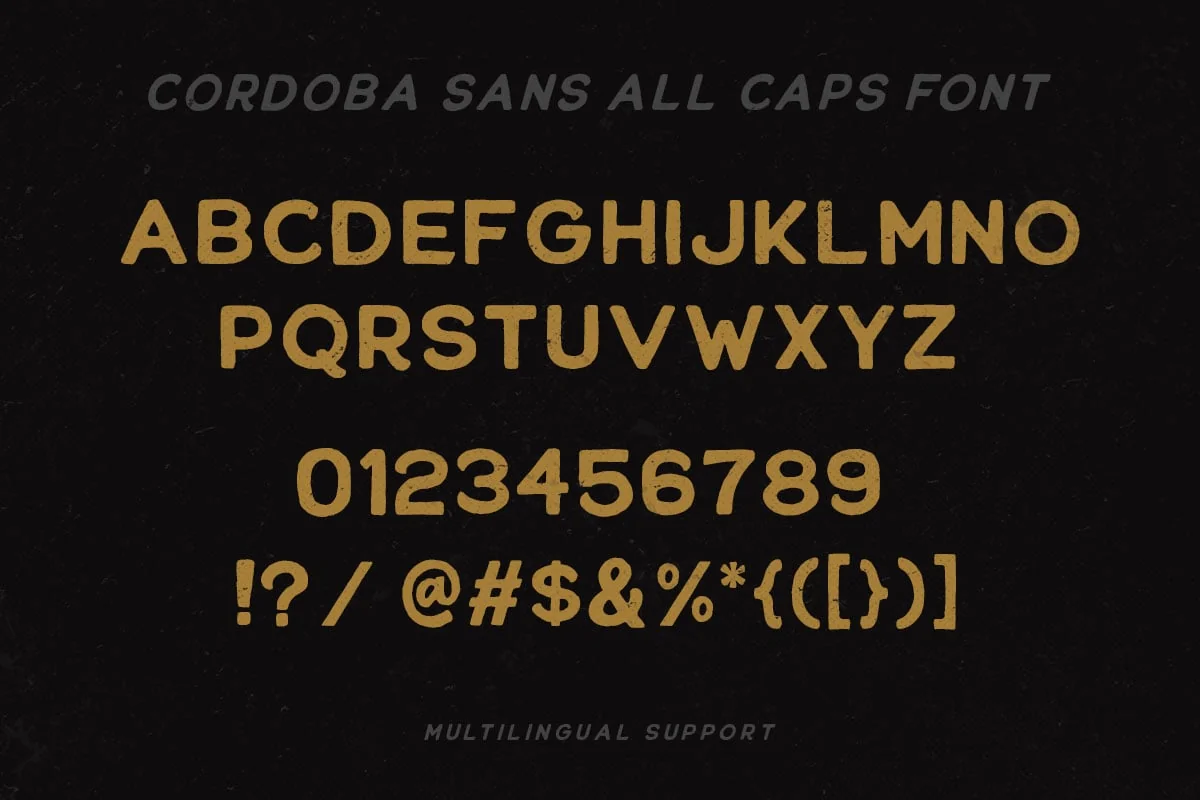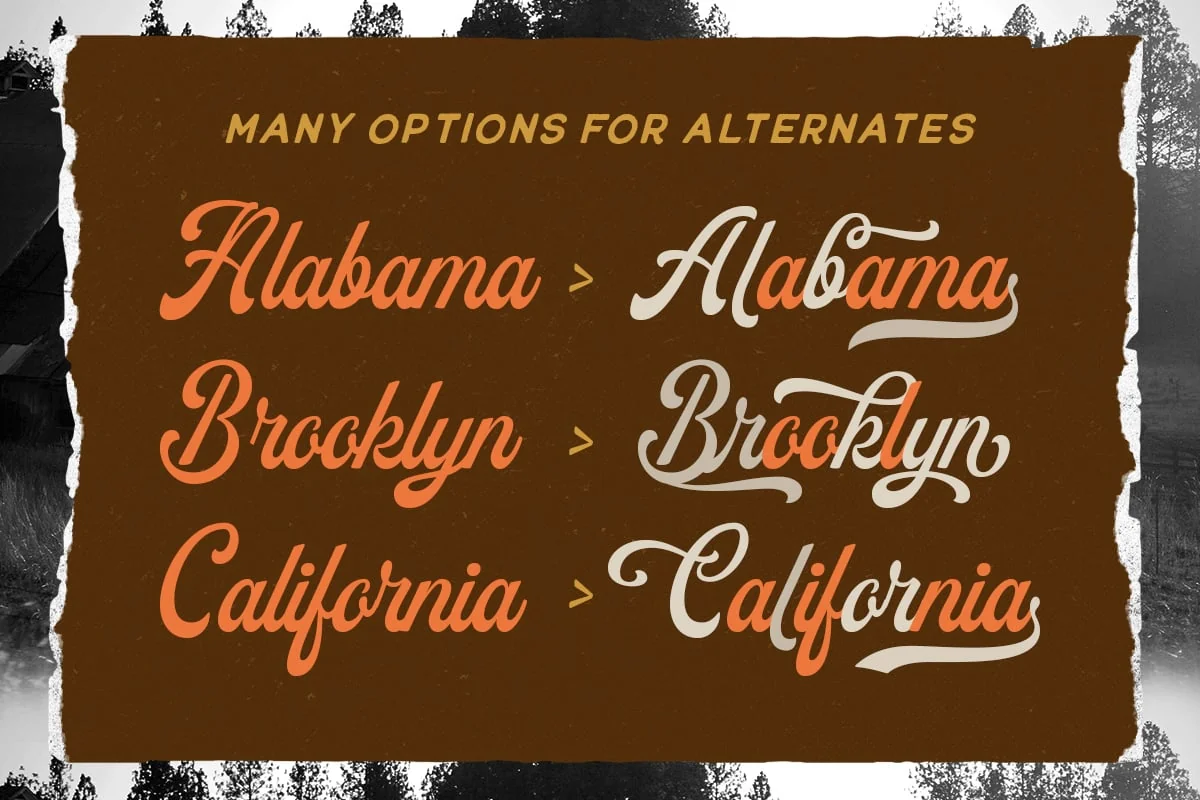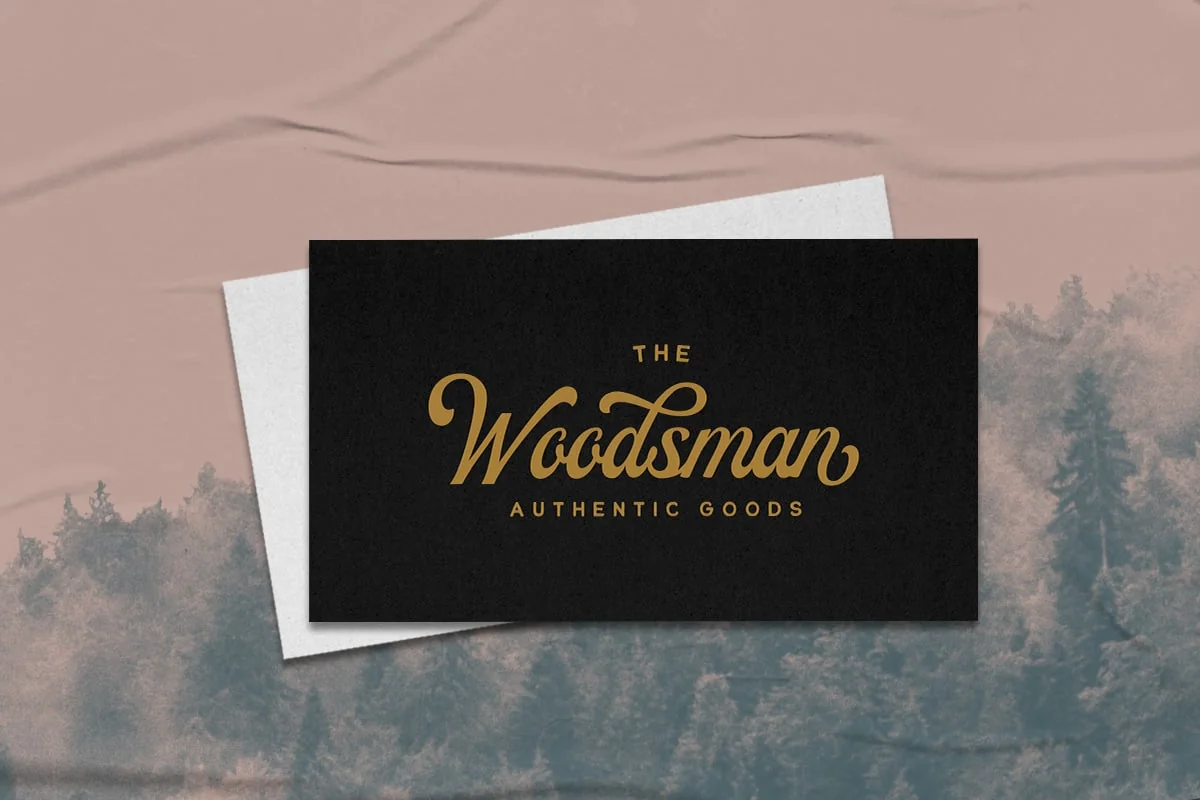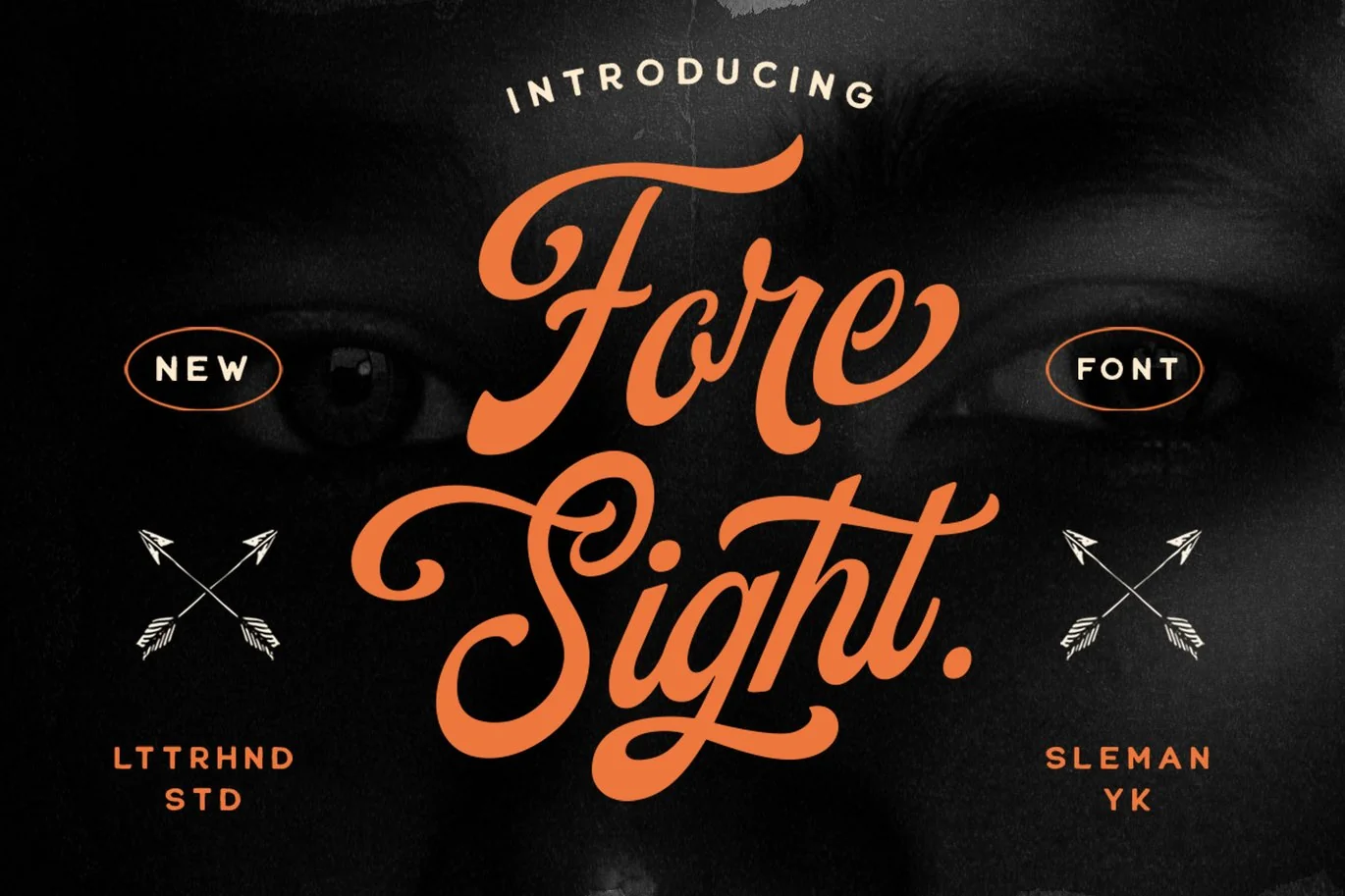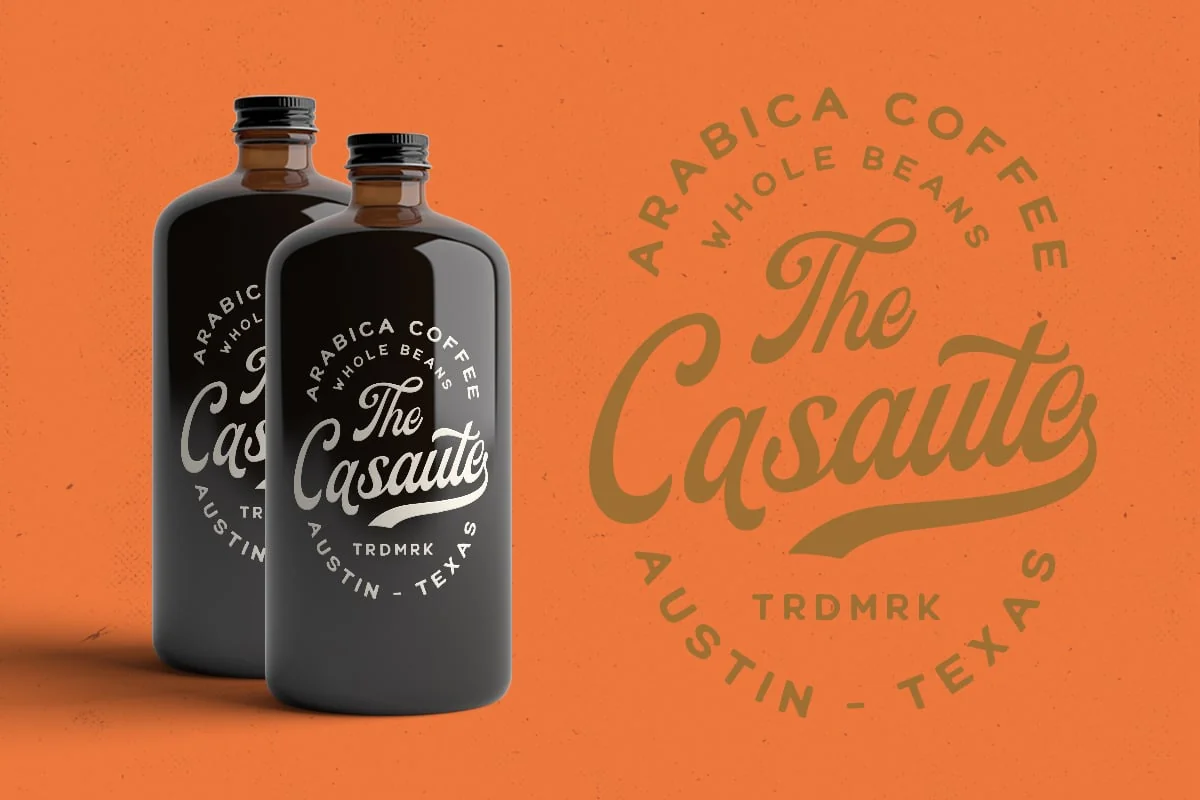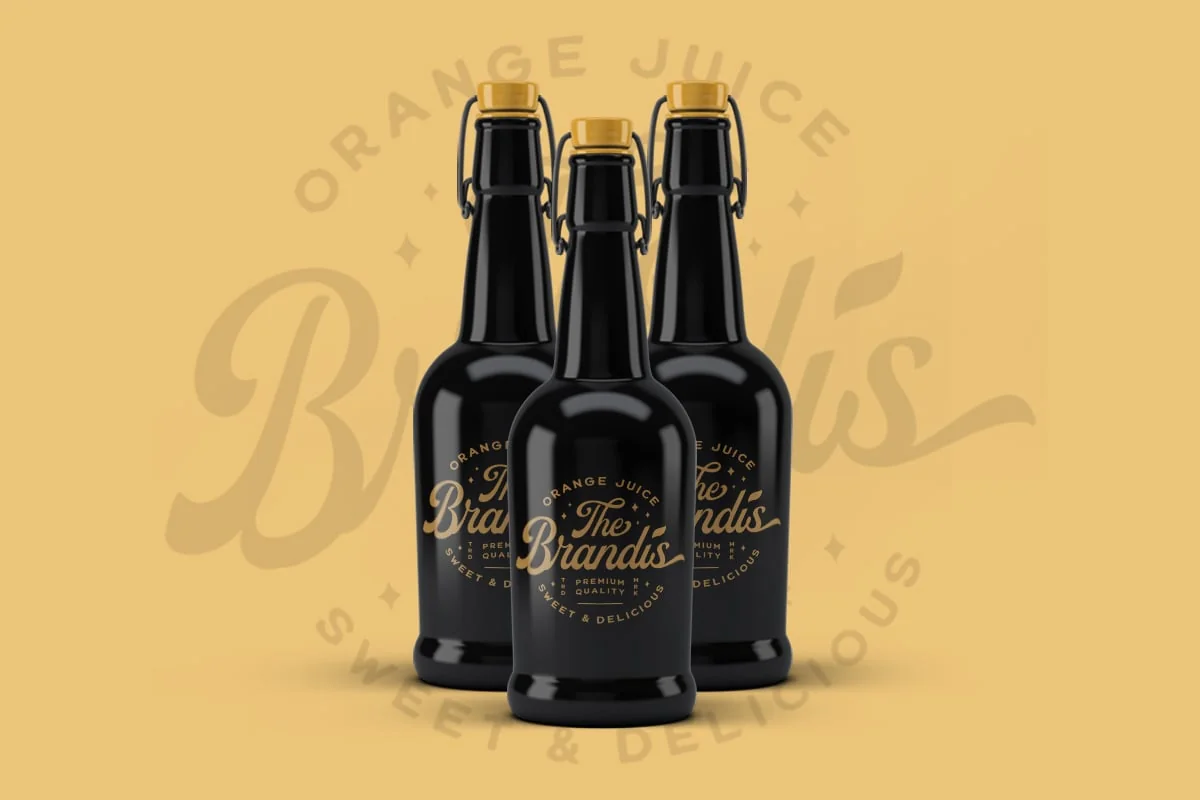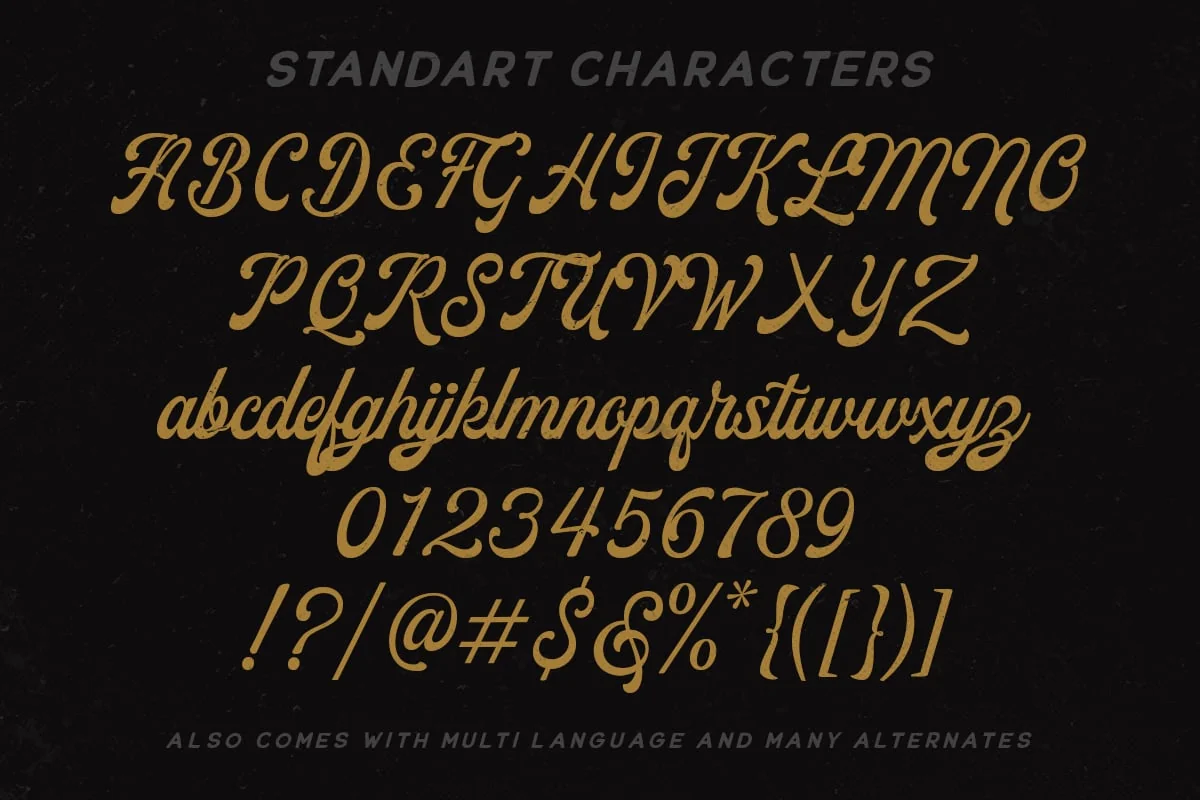
Foresight Font
Foresight is a vintage script font which is purposely made for a headline, display or logotype. This type of font perfectly made to be applied especially in logo, and the other various formal forms such as invitations, labels, logos, magazines, books, greeting / wedding cards, packaging, fashion, make up, stationery, novels, labels or any type of advertising purpose.
Foresight font & Cordoba sans font
uppercase & lowercase
numbers and punctuation
multilingual
alternates & ligatures